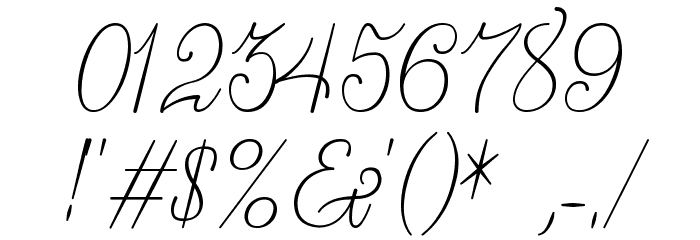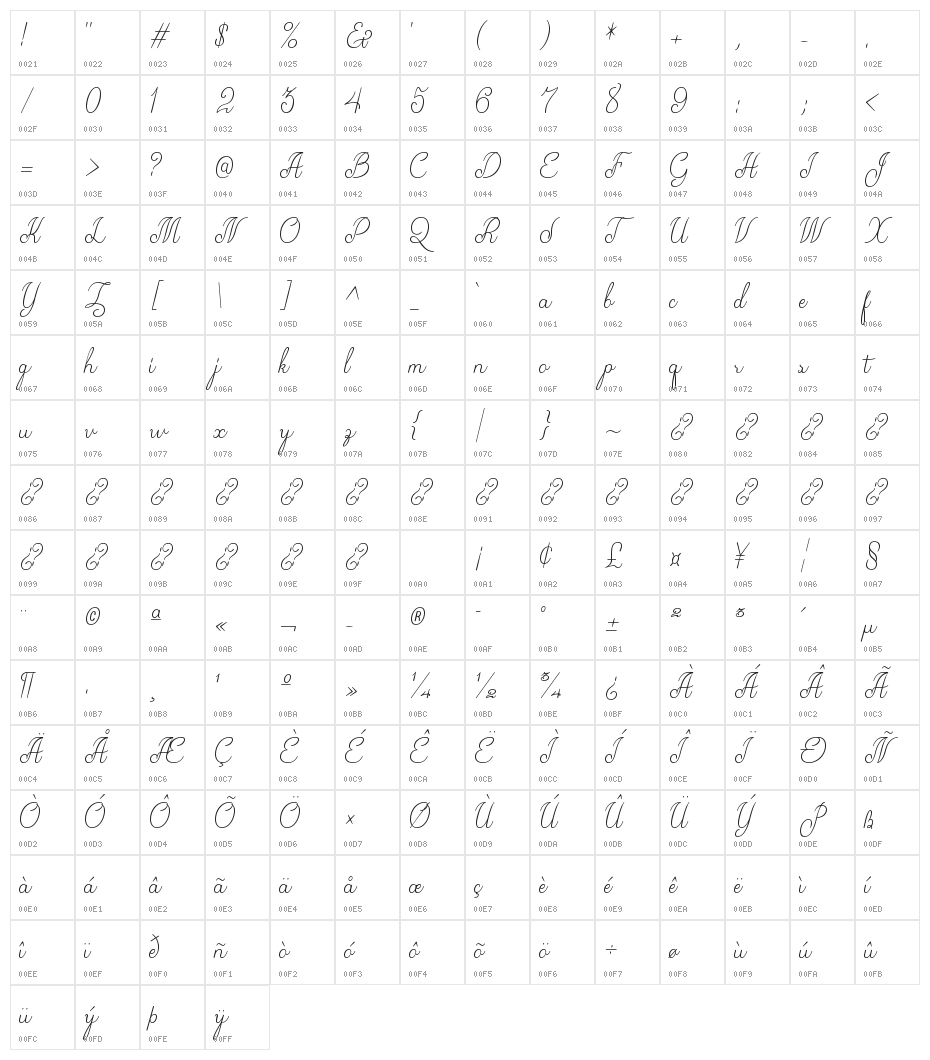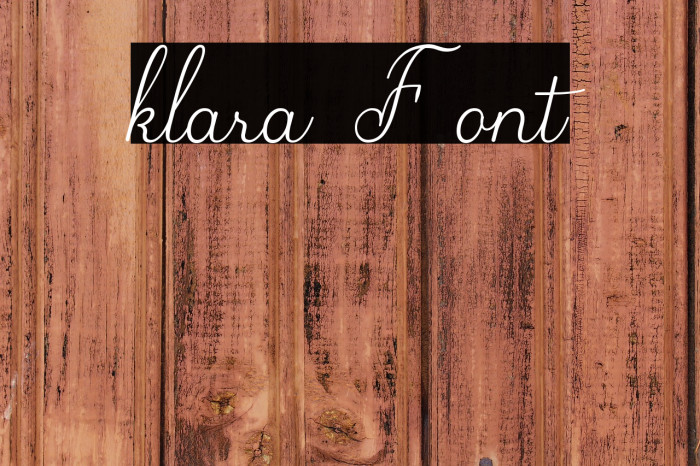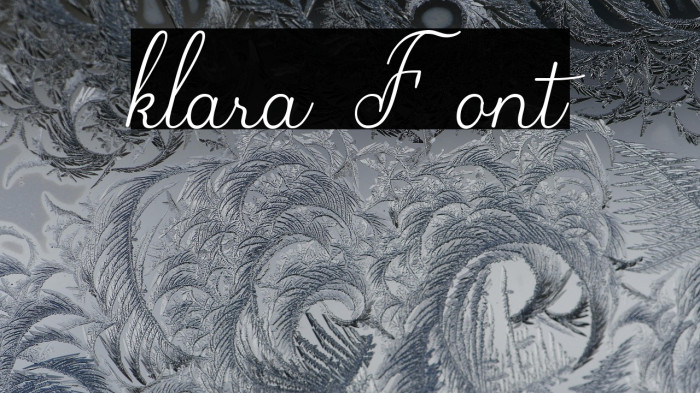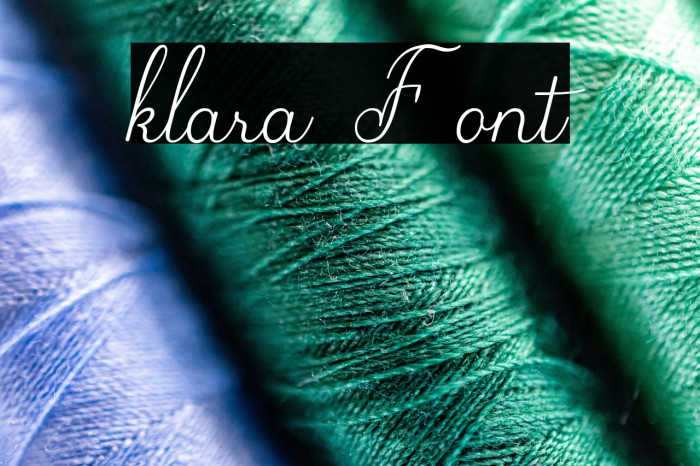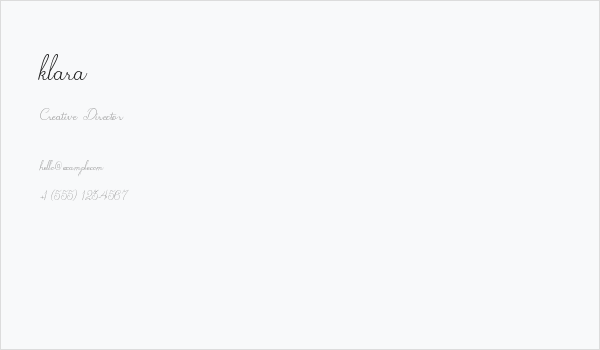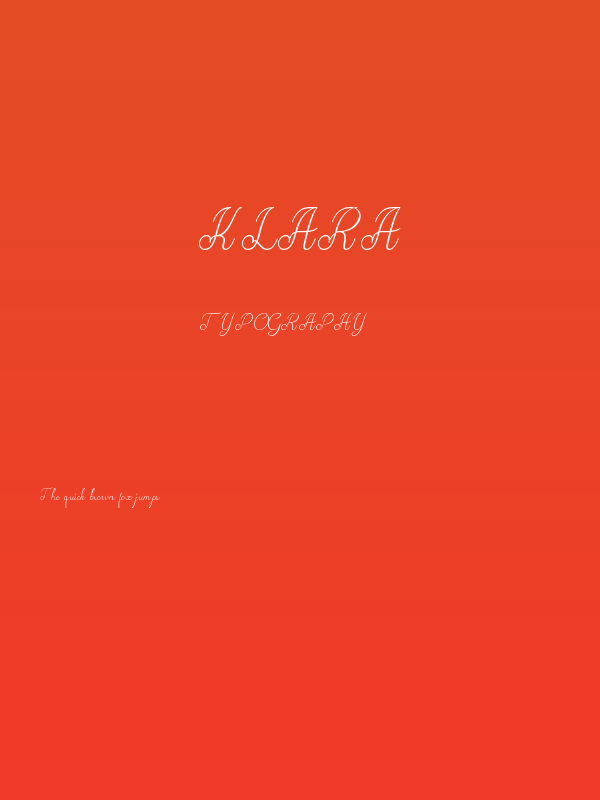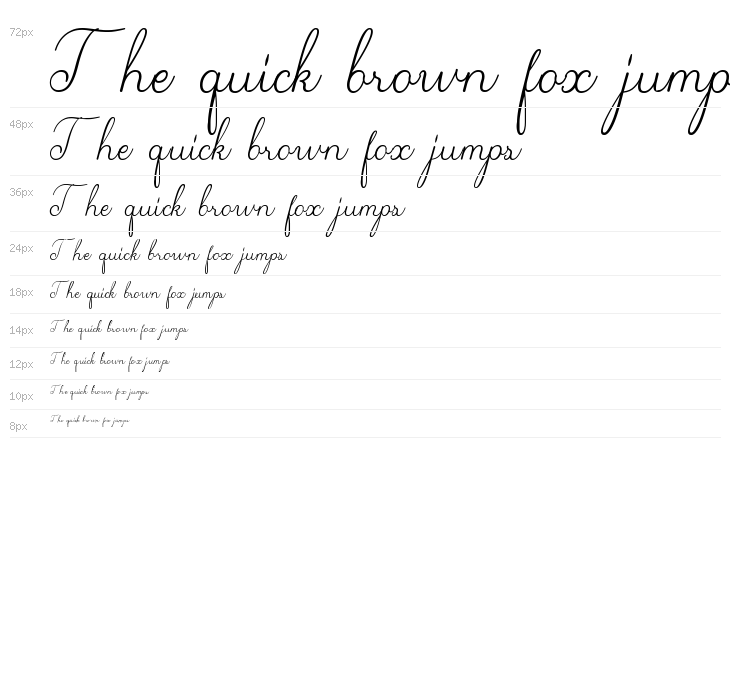
klara Font
klara Description
This elegant script font features fluid, cursive strokes that mimic the natural flow of handwriting. The uppercase letters are characterized by their graceful loops and swashes, giving a sense of sophistication and formality. The lowercase letters maintain a consistent style, with smooth connections between characters, enhancing readability while preserving the decorative nature of the script. The numerals and special characters are designed to match the overall aesthetic, with a harmonious blend of curves and lines. This font is ideal for projects that require a touch of elegance and personal flair, such as invitations, greeting cards, and branding materials.
| Use Case | Headlines, Invitations, Branding |
| Proposed Projects | Ideal for wedding invitations, greeting cards, branding, and elegant stationery. |